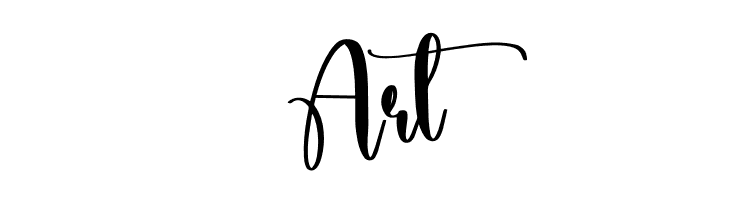
Light, whimsical handwritten script with a pronounced italic slant.
Elegant, handwritten cursive script with a whimsical, airy style.
Light, whimsical handwritten script with tall, airy letterforms.
Elegant, casual handwritten script with tall, flowing forms.
Expressive, modern script with bold, sweeping strokes and decorative flair.